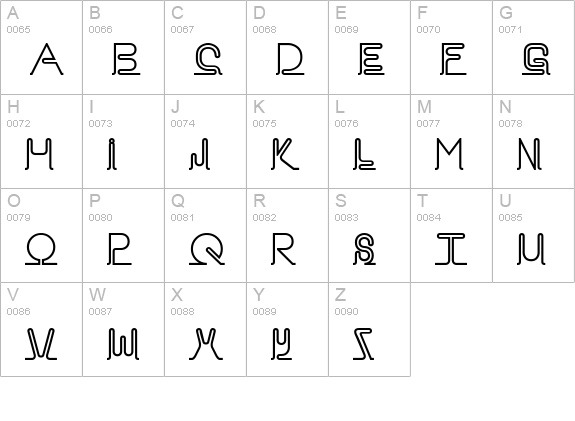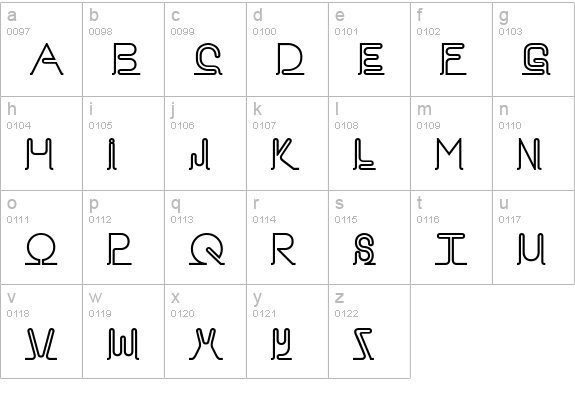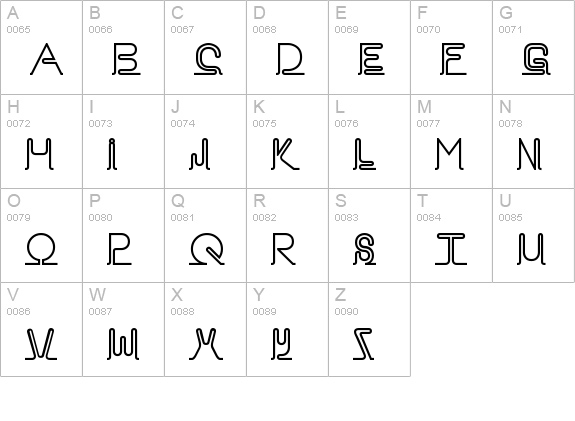
Introducing the captivating Neon font - a vibrant and eye-catching typeface that exudes a futuristic and modern feel. With its sleek lines and electrifying glow, Neon font is perfect for making a bold statement in your designs. This font is a versatile choice for various projects, from posters and logos to social media graphics and branding materials. The best part? Neon font is completely free to download at FontsMarket.com! Take your designs to the next level with this stunning font and let your creativity shine bright with Neon. Download now and make your projects stand out with this electrifying typeface.